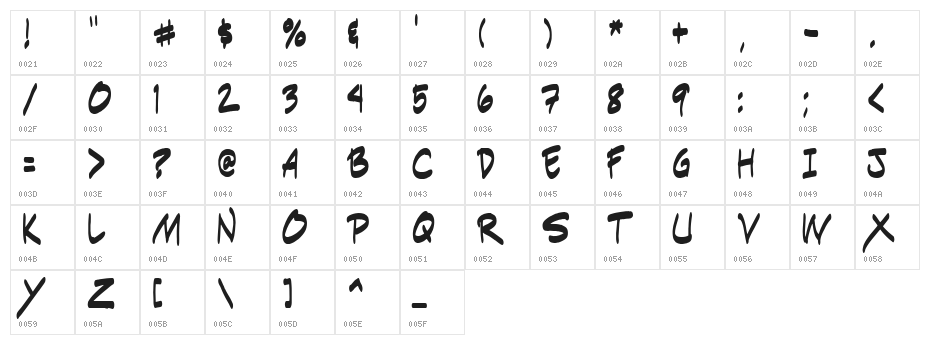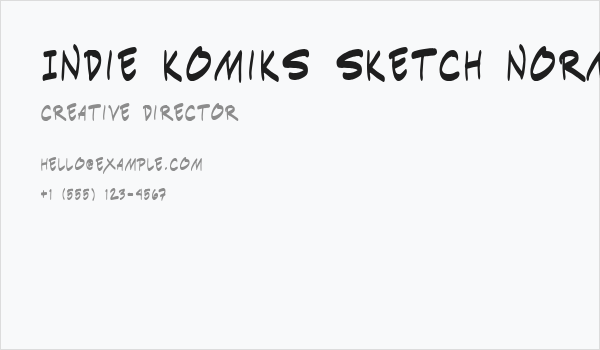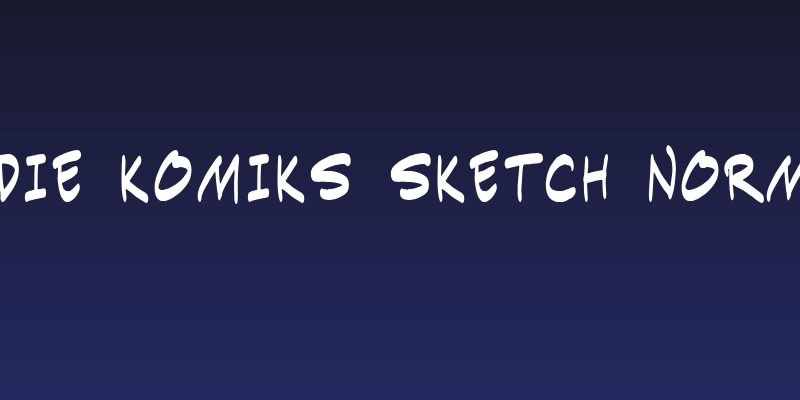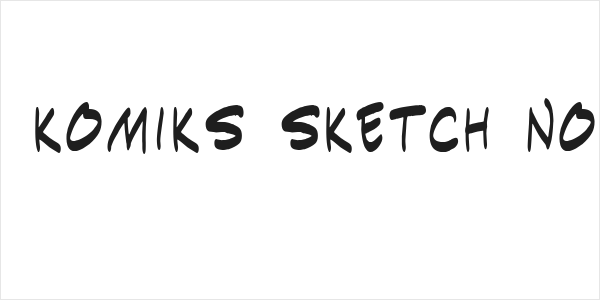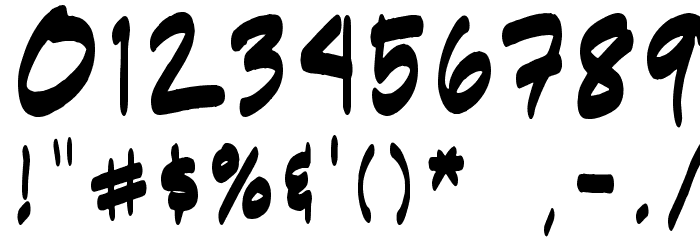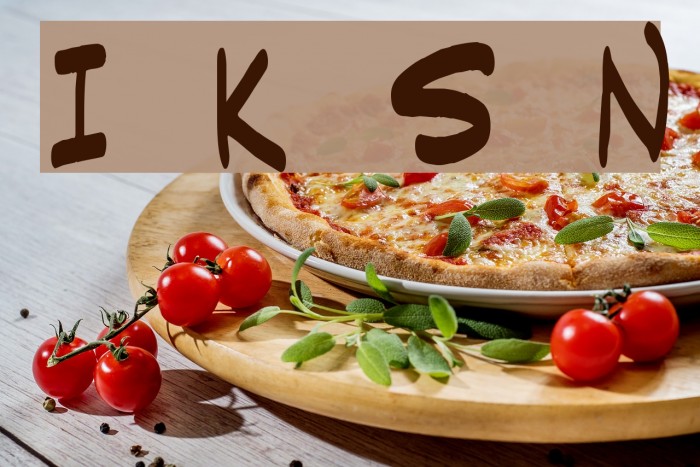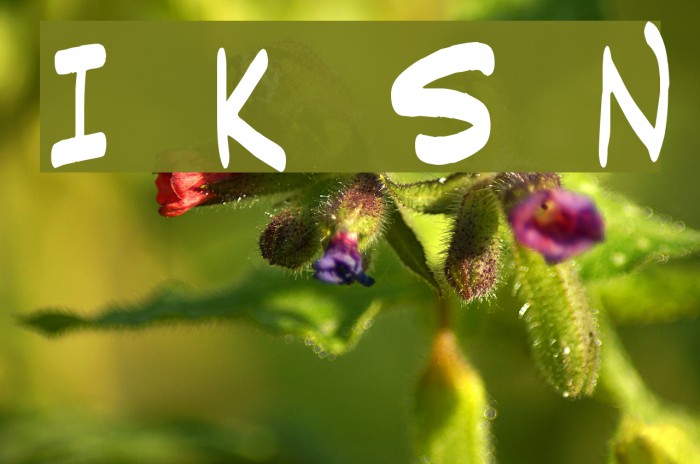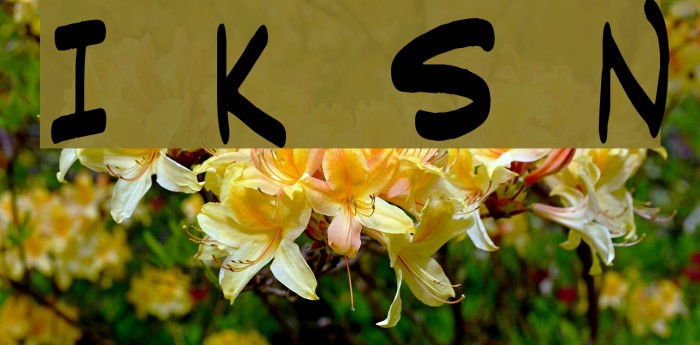
Indie Komiks Sketch Normal Font
Indie Komiks Sketch Normal Description
This font features a bold, hand-drawn style that mimics the look of comic book lettering. The characters are slightly irregular, giving them a playful and informal appearance. The strokes are thick and consistent, creating a strong visual impact. The uppercase and lowercase letters maintain a cohesive style, with rounded edges and a slight slant that adds to the dynamic feel. Numbers and special characters are included, matching the overall aesthetic with their bold and sketch-like quality. This font is perfect for projects that require a fun and energetic vibe.
| Proposed Projects | Ideal for comic books, graphic novels, children's books, posters, and playful branding. |